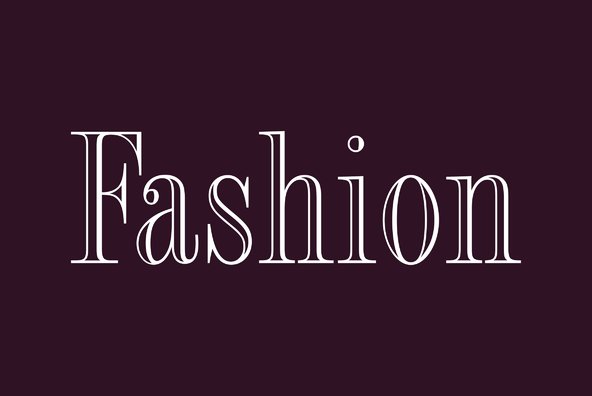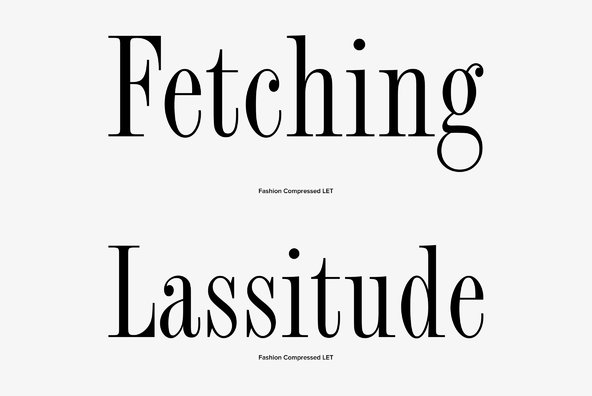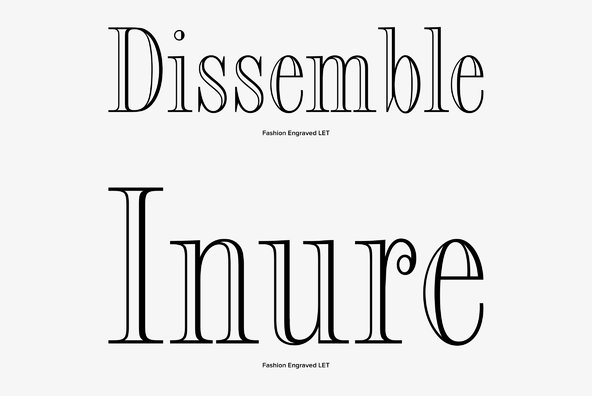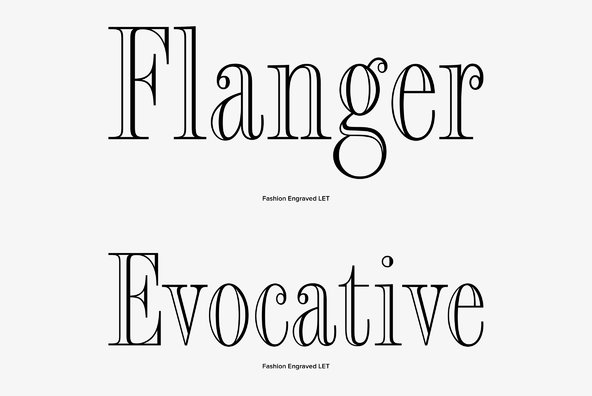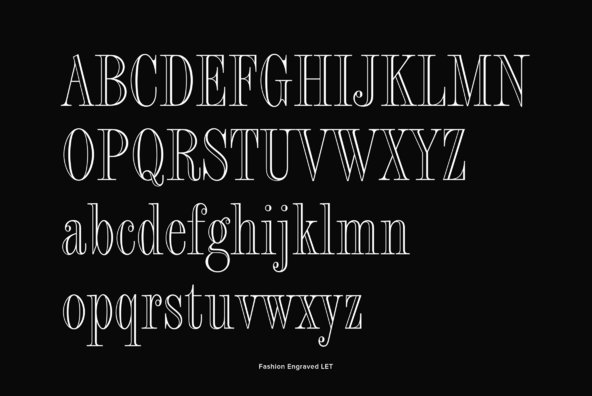
Fashion
The well-known British designer Alan Meeks elegantly reworked Fashion Compressed No.3 to produce this beautiful, condensed engraved typeface. The fine line weights make it ideal for application wherever a slender feminine effect is desired.